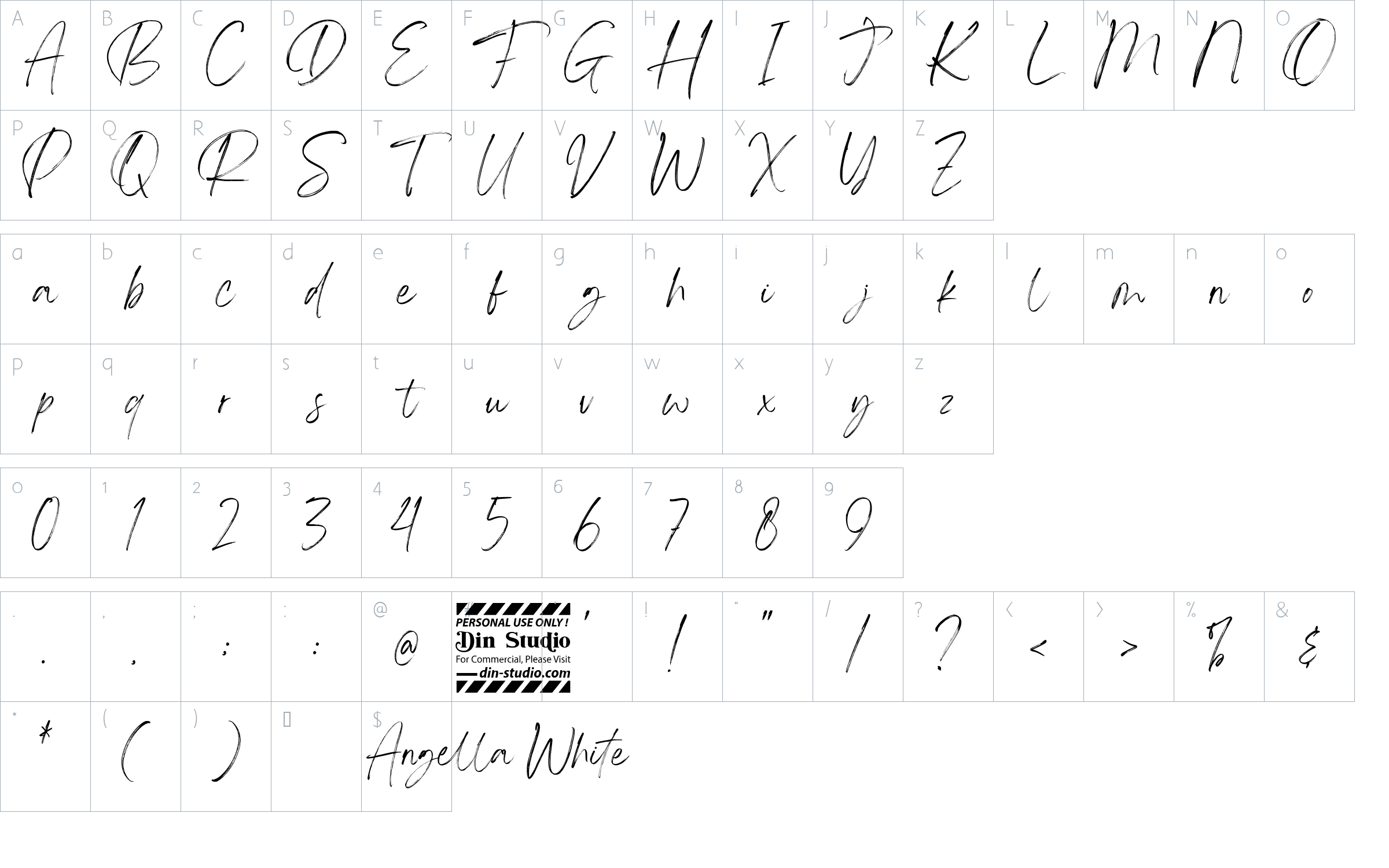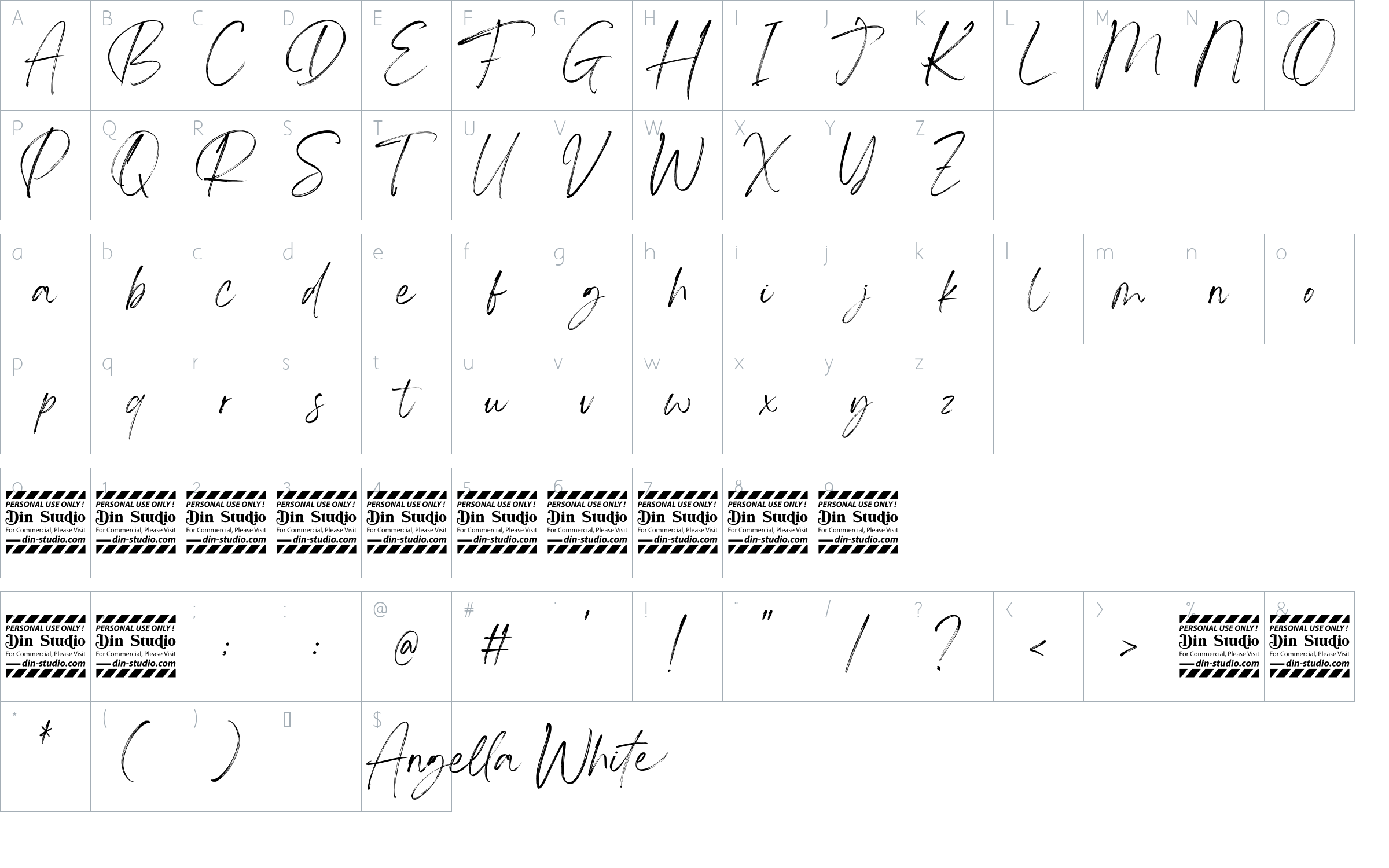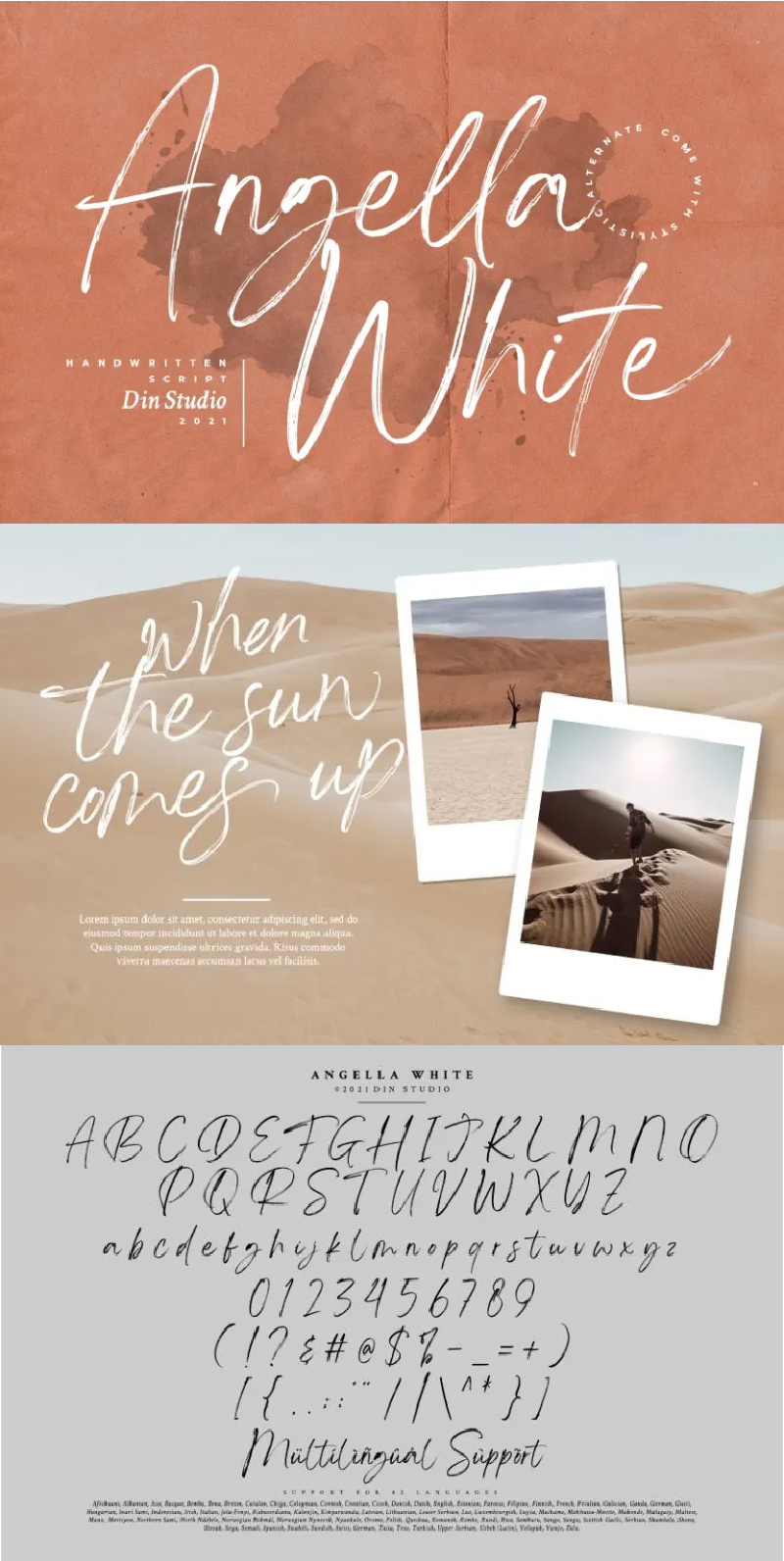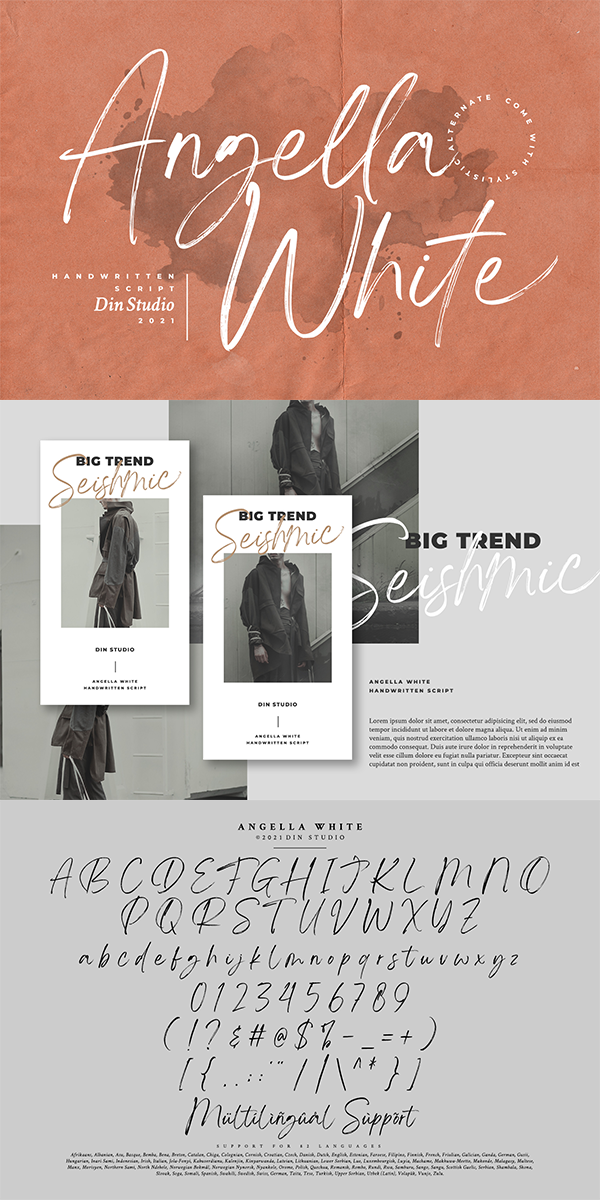
Angella White Font
About Angella White
Looking for a font that’ll make your branding radiate elegance? Something that’s versatile, stylish, and eternal? Get ready to transcend to a world of magic, laughter, and butterflies. Your branding will spark delight and engage everyone who sees it! Introducing Angella White – A Brush Font.
A beautifully handcrafted font combined with brush style that’ll make your guests sing and elevate your projects! Every stroke, and curve was created to entice happiness and elegance. Use it to create standout headings, promote your online sales, Instagram quotes, and even printed materials like business cards, t-shirts, or invitations.
Angella White includes Multilingual Options to make your branding globally acceptable. See the previews above to get some inspiration on how you can use them.
-Standard Ligatures